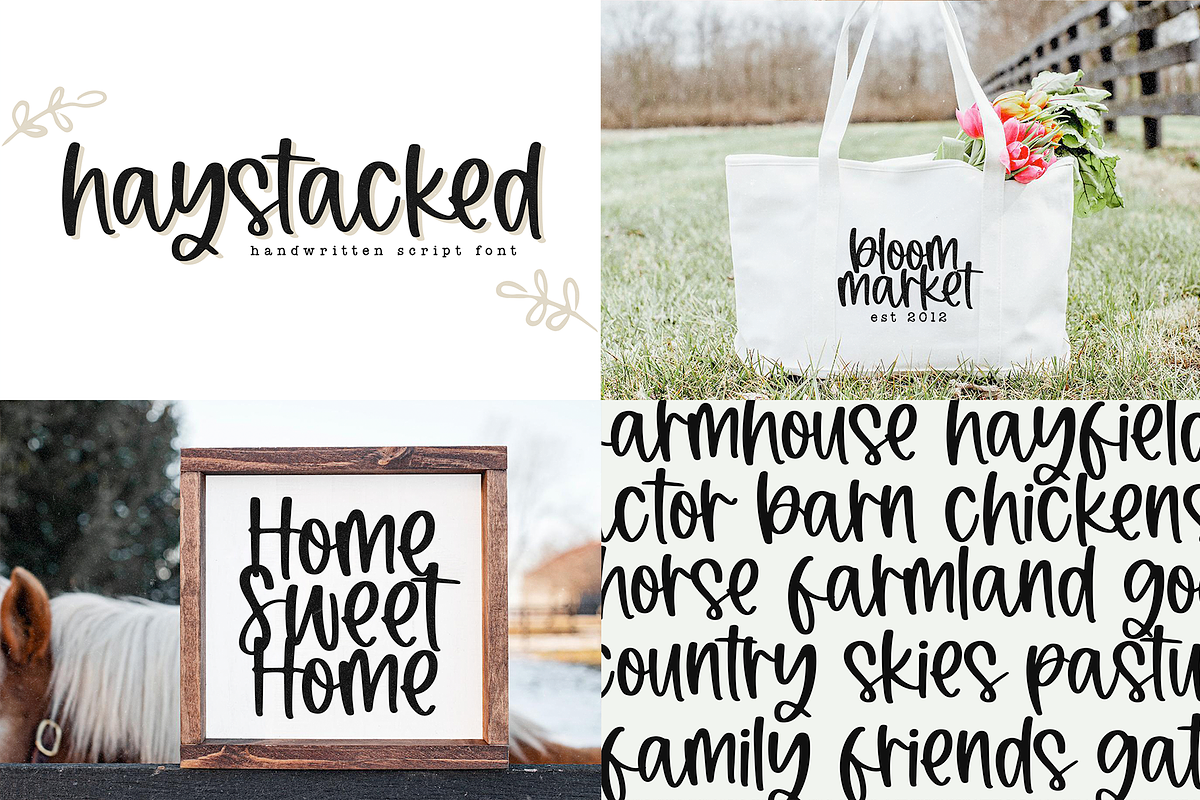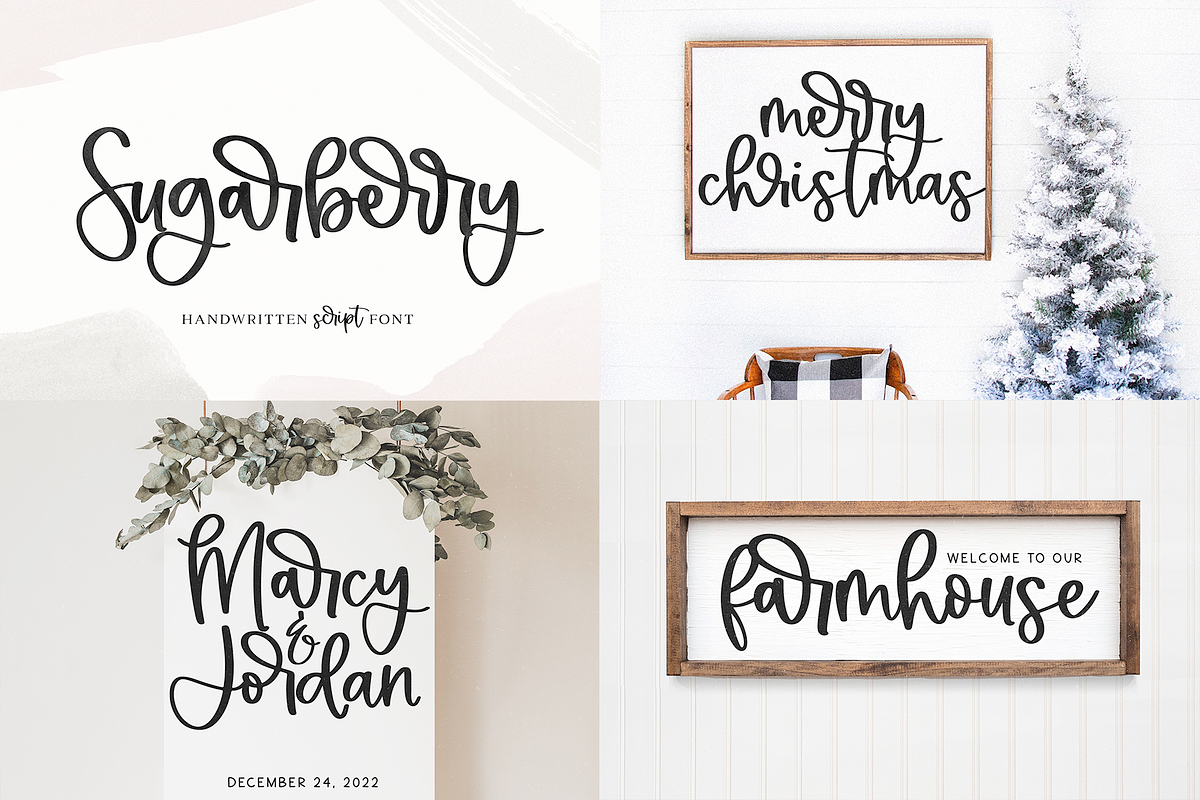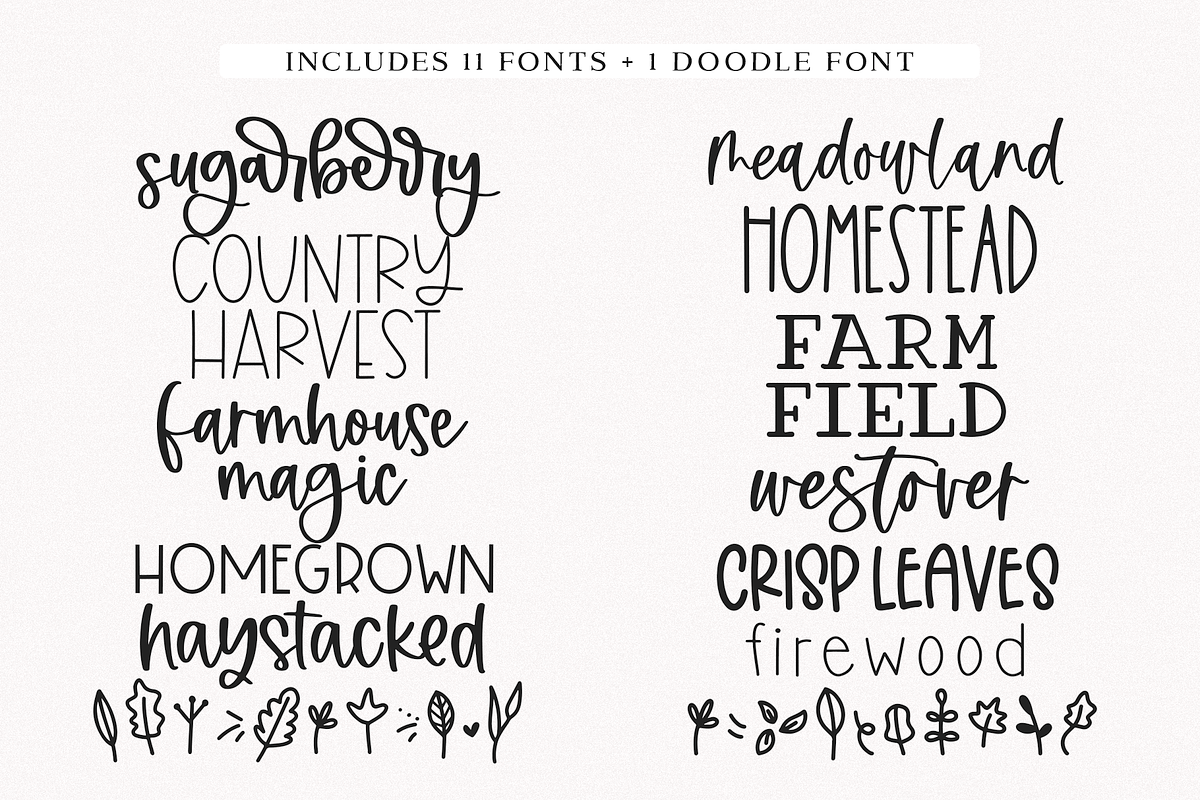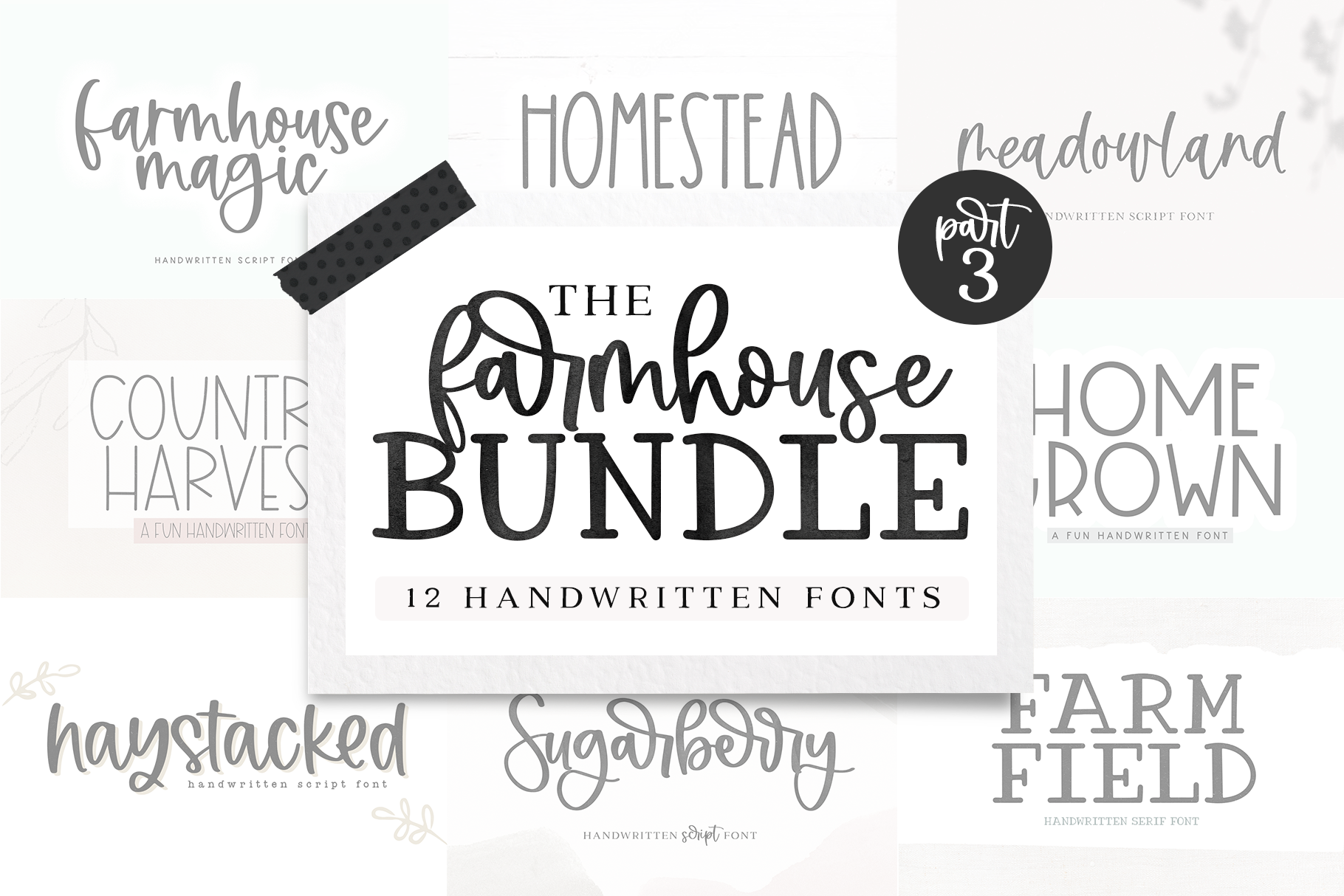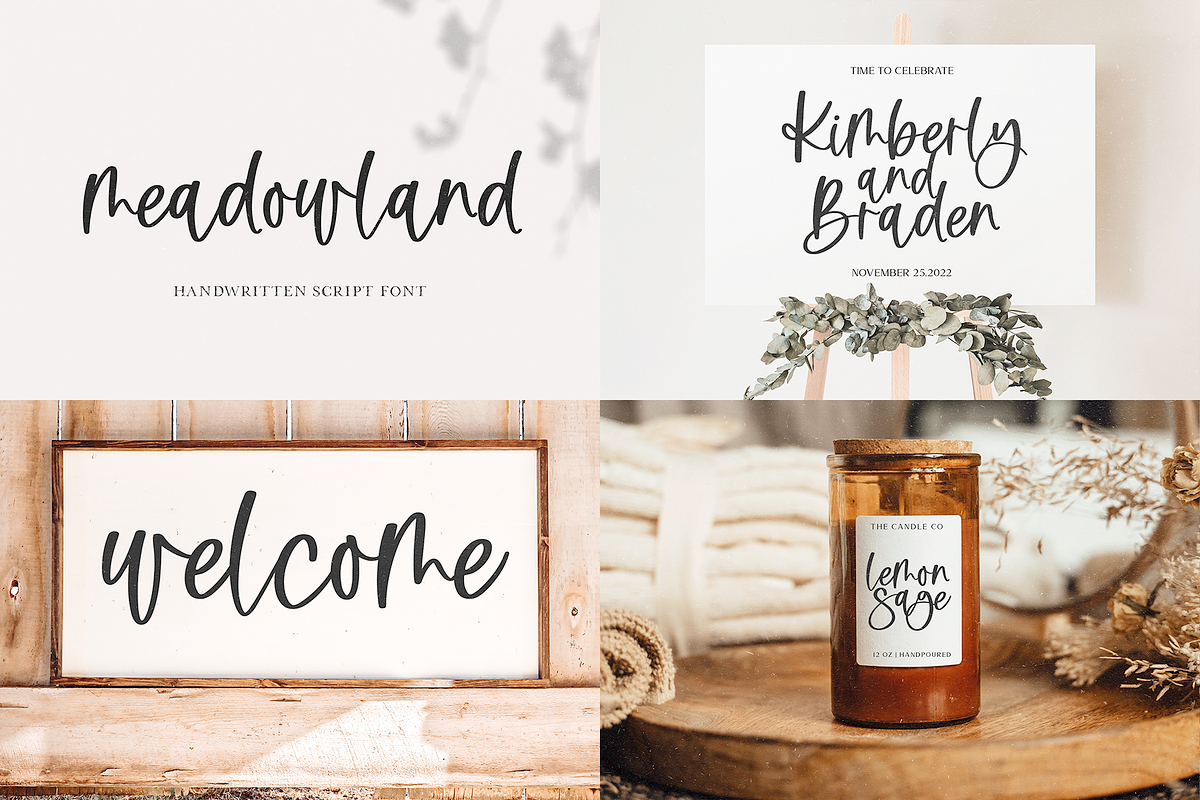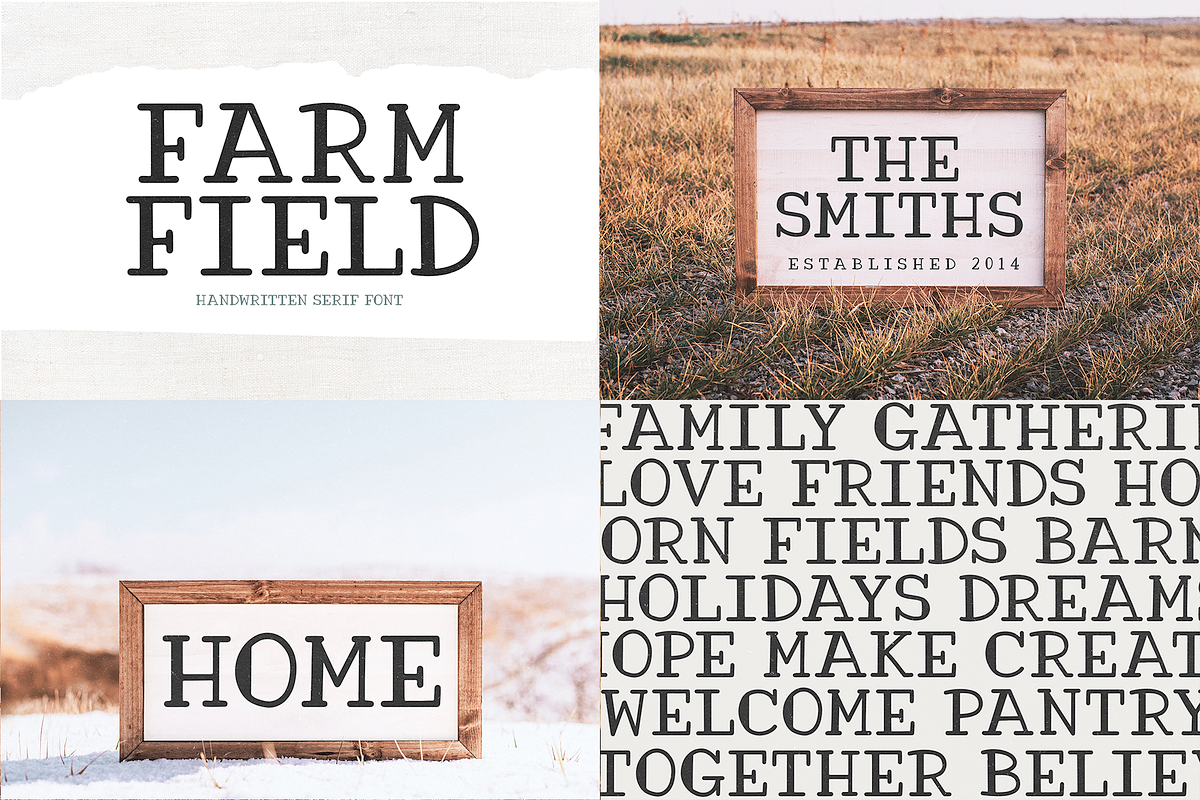
Farmhouse Font Bundle | Part Three
Farmhouse Font Bundle - Vol. 3
This bundle includes a handpicked selection of fonts, perfect for your farmhouse and country designs!
Fonts Included
- Sugarberry
- Country Harvest
- Meadowland
- Homestead
- Farmhouse Magic
- Homegrown
- Farm Field
- Haystacked
- Crisp Leaves
- Westover
- Crisp Leaves Extras